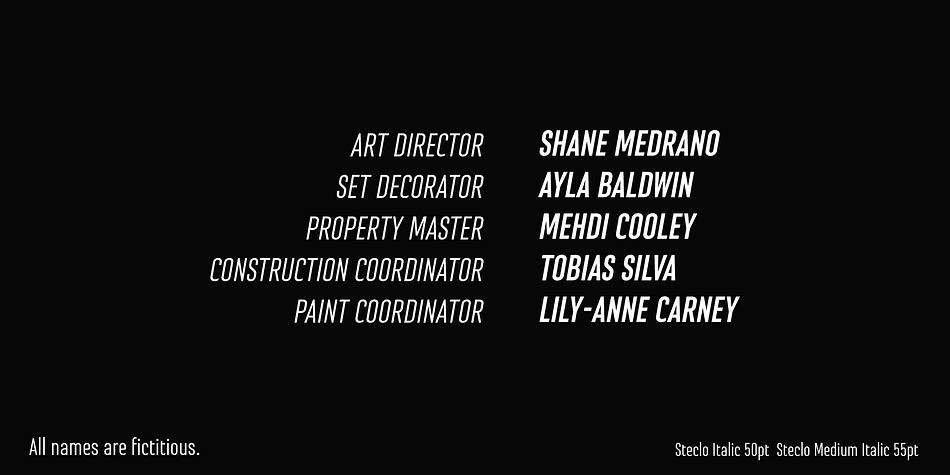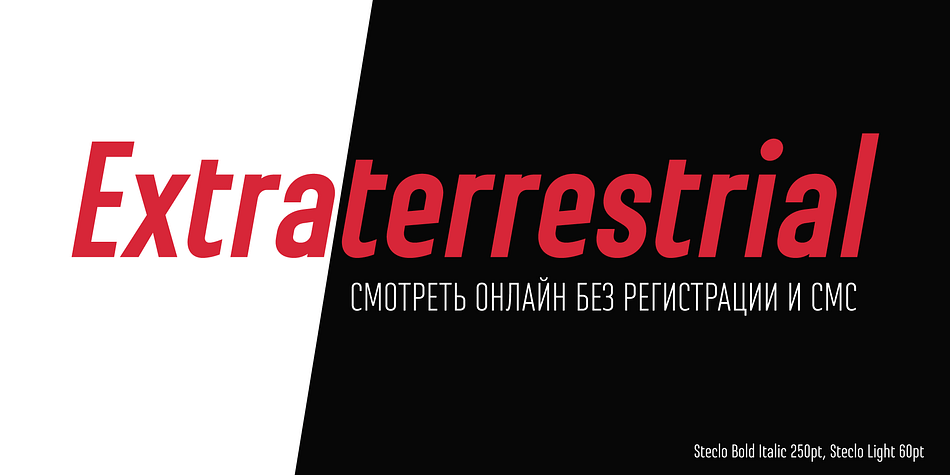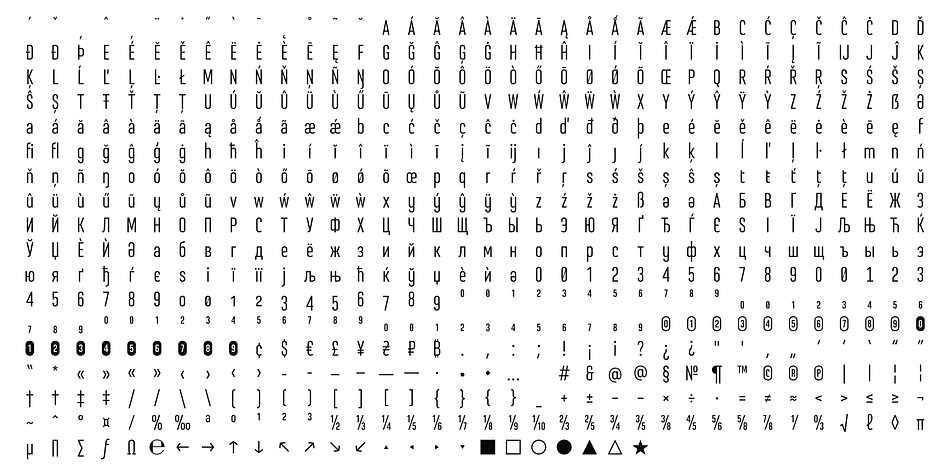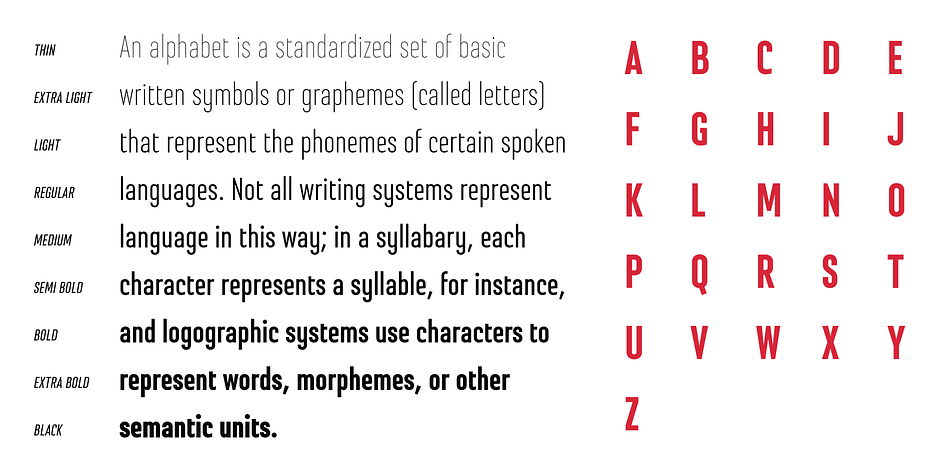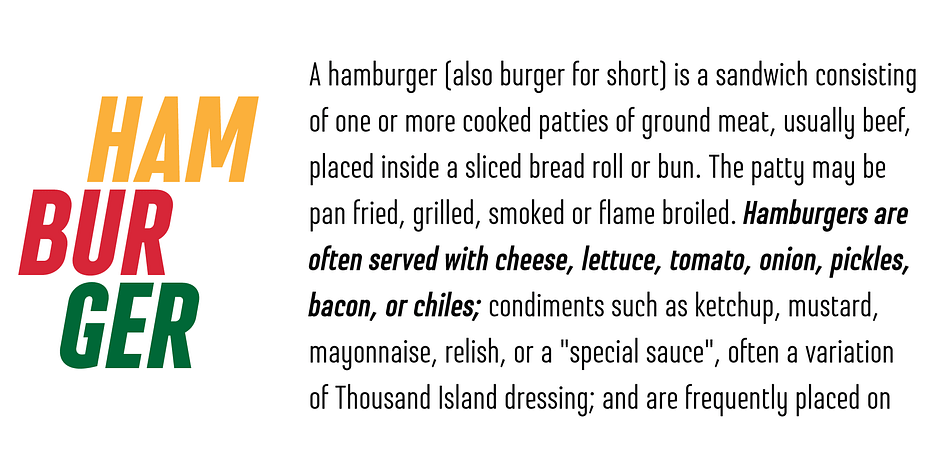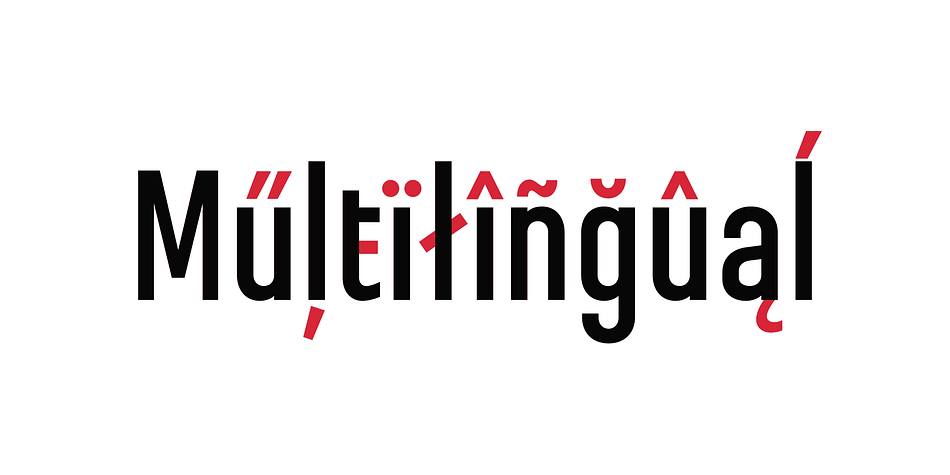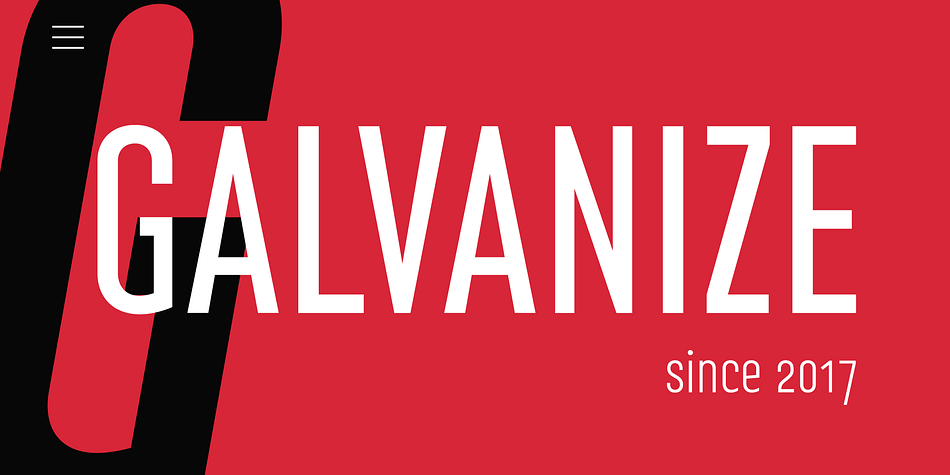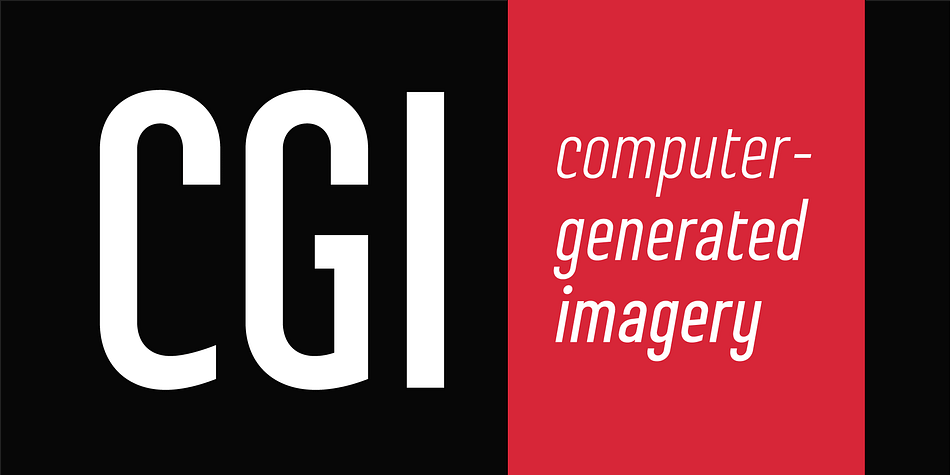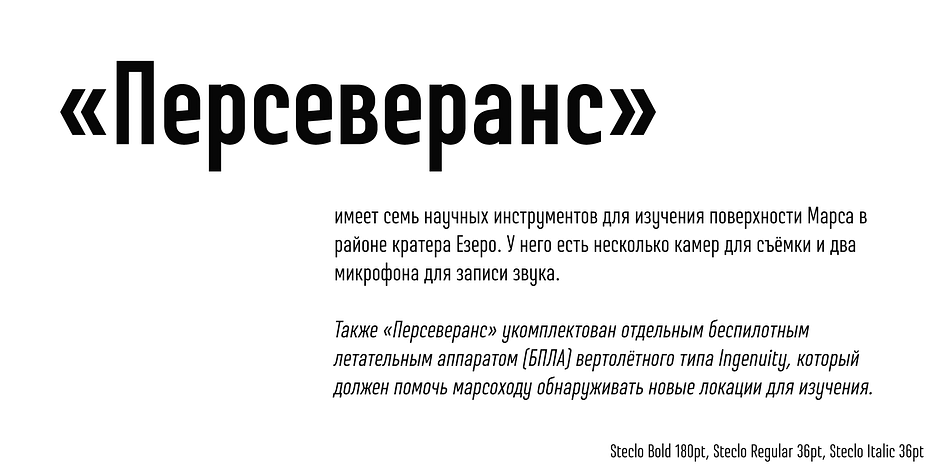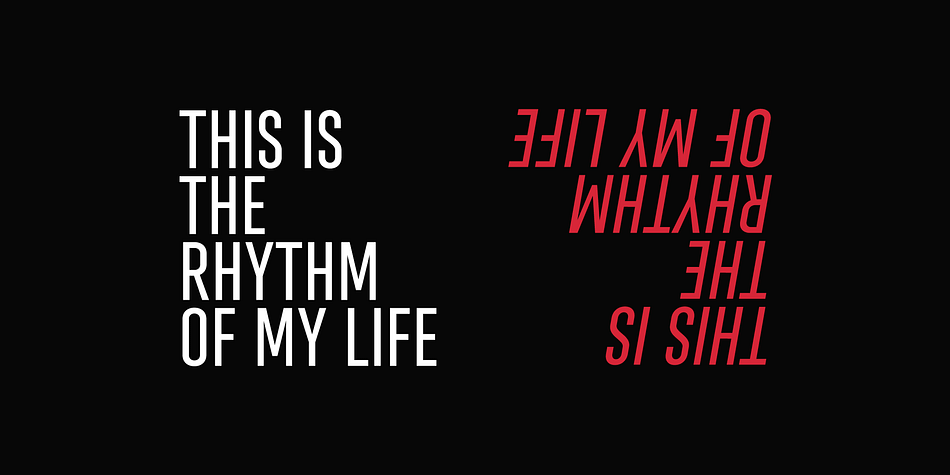
Steclo is a sans serif font family. This typeface has eighteen styles and was published by Pepper Type.
Steclo is a semi-closed narrowed display sans-serif typeface with pronounced technical character. It comes in 9 weights from Thin to Black accompanied by corresponding oblique italics. Steclo features rich language support including pan-European Latin and basic Cyrillic glyph sets.